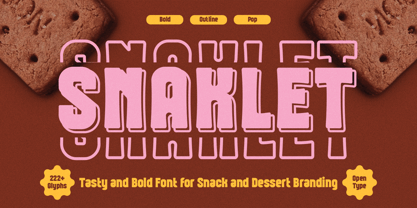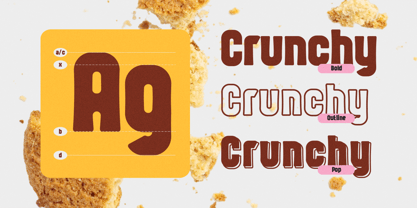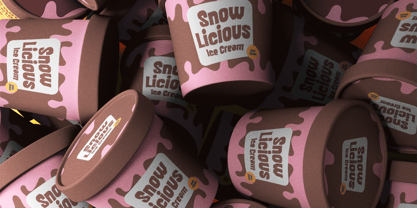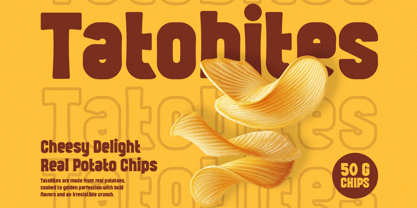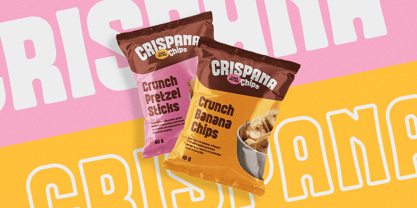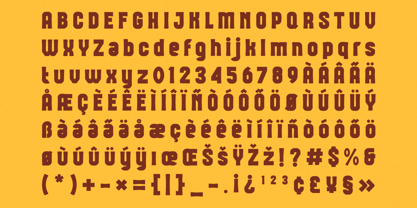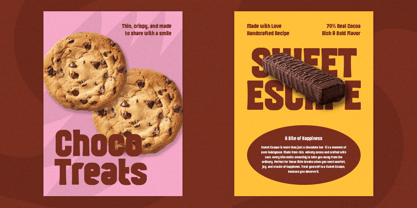
Snaklet
by Steptype
The Snaklet Font Family was designed by Asya Fatkhul Illah and published by Steptype. Snaklet contains 3 styles and family package options.
Snaklet is a bold handwritten display font crafted to elevate snack and dessert packaging with a flavorful and friendly vibe. Its chunky curves and dynamic strokes give off a deliciously playful and energetic feel—perfect for catching eyes on shelves or scrolling screens.
• Style & Energy: Bold, chunky, rounded, fun, and flavor-packed—Snaklet blends approachability with standout strength.
• Market Fit: Tailored for F&B packaging, especially for dessert brands, candy labels, snack products, and fun Instagram promotions. Ideal for children's snacks and teen-oriented branding.
• Letterform Structure: Smooth, rounded handwritten letters with organic bounce, giving it a fresh, handcrafted look that feels personal yet bold.
• Best Use Cases:
• Food and snack packaging
• Beverage and dessert branding
• Kids’ product labels
• Ice cream, cupcake, and candy visuals
• Logo design for food startups
• POS displays, signage, and product merch
Need a font that instantly makes your dessert or snack product feel irresistible? Snaklet delivers bold personality and handcrafted charm, helping your brand look tasty, modern, and fun—before anyone even takes a bite. It's the font equivalent of eye candy, built for bold shelf impact and memorable branding.
Why Snaklet works:
• Bold & Approachable: Thick letterforms stand out on colorful packaging and signage.
• Handwritten Flavor: Adds an authentic, playful human touch.
• Made for Food Branding: Created with snack labels, dessert logos, and sweet treats in mind.
• Perfect for Kids and Teens: Lighthearted vibe makes it ideal for young consumer brands.
• Smooth & Clean Glyphs: Ensures legibility across print and digital applications.
• Great for Logos & Headlines: Display-ready and full of character for strong typographic statements.
Use Snaklet to add joy and personality to your food designs—because every sweet bite deserves a bold first impression.
About Steptype
Steptype is an independent type foundry founded by Asya Fatkhul Illah and based in Kendal, Indonesia. The foundry specializes in creating playful and friendly handwritten fonts, primarily designed for children’s media, casual games, and food & beverage packaging.With a focus on quality and character, the foundry is dedicated to producing distinctive fonts that support a wide range of creative projects. Steptype is committed to delivering typefaces that balance creativity, usability, and visual appeal—helping designers communicate with impact and personality.